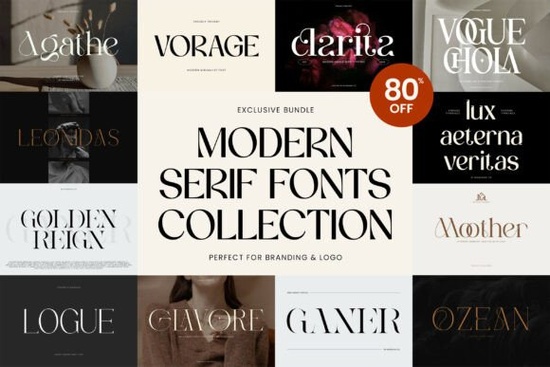
If you're looking for a versatile set of serif fonts that blend classic elegance with contemporary style, the Modern Serif Bundle Font is worth your attention. This collection brings together eight carefully crafted typefaces each designed to add sophistication without feeling outdated. Whether you’re working on branding for a boutique shop, designing magazine spreads, or creating social media graphics, these fonts offer flexibility and polish.
Serif fonts have long been associated with trust, tradition, and refinement. But modern takes like those in this bundle refresh that legacy with cleaner lines, unique letterforms, and thoughtful details. The result? Typography that feels both timeless and current ideal for projects where you want to stand out without sacrificing readability.
What makes these fonts different from other serif collections?
Many free or basic serif fonts lean heavily into either vintage charm or stark minimalism. The fonts in this bundle strike a balance. You’ll find options like Agathe, which offers delicate contrast and graceful terminals, alongside bolder choices like Vorage that command attention with strong strokes and distinctive character.
All eight fonts are PUA-encoded, meaning you can easily access alternate glyphs, swashes, and stylistic sets directly through design software like Adobe Illustrator or Canva no extra plugins needed. This level of detail is especially helpful if you’re creating logos or packaging where subtle typographic flair can make a big difference.
Who should use this bundle?
This collection works well for a range of creative professionals and small business owners:
- Brand designers building identities for fashion, beauty, or lifestyle brands will appreciate the refined yet modern feel.
- Print-on-demand sellers can use these fonts for quote mugs, wall art, or apparel that needs a touch of class.
- Editors and layout artists working on digital magazines or editorial content benefit from clean, readable serifs like Ozean or Ganer.
- Hobbyists and crafters creating invitations, greeting cards, or social templates will find plenty of personality in fonts like Vogue Chola or Glavore.
How do I know which font to pick for my project?
Start by considering your message and audience:
- For luxury or high-end branding, lean toward Clarita or Logue they carry quiet confidence with refined proportions.
- If your design needs energy or drama (think event posters or bold headlines), Vorage or Vogue Chola deliver strong visual impact.
- For body text or layered layouts, Ozean and Ganer offer excellent legibility even at smaller sizes.
Looking for something with a similar vibe but slightly different character? The Modern Serif Bundle pairs well with standalone releases like Clarita, which stands out for its soft curves and editorial elegance.
- ✅ Consider pairing one of these serifs with a clean sans-serif for contrast (many designers use this combo for logos and web headers).
With eight distinct yet cohesive options, the Modern Serif Bundle Font gives you room to explore while keeping your workflow efficient. Whether you’re refreshing a client’s brand or adding finishing touches to a personal project, these fonts help you communicate with clarity and style without overcomplicating the process.